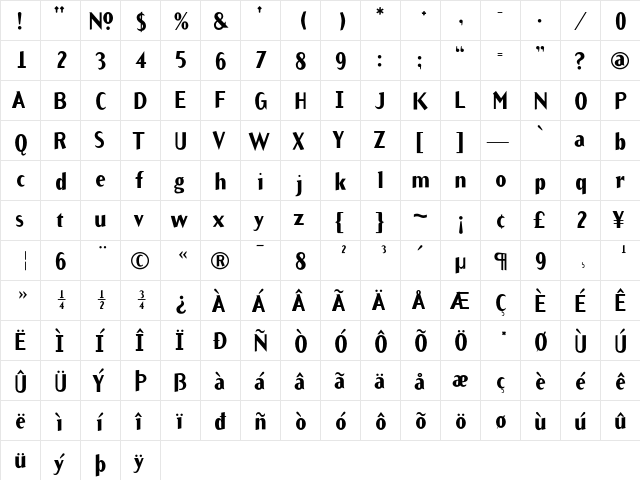
ArbitraryBold Regular Font Preview
ArbitraryBold Regular
Design Context for ArbitraryBold Typeface
ArbitraryBold is a composed and adaptable typeface that performs quietly and consistently across a wide range of design contexts. The heavy weight commands attention and anchors typographic hierarchies.